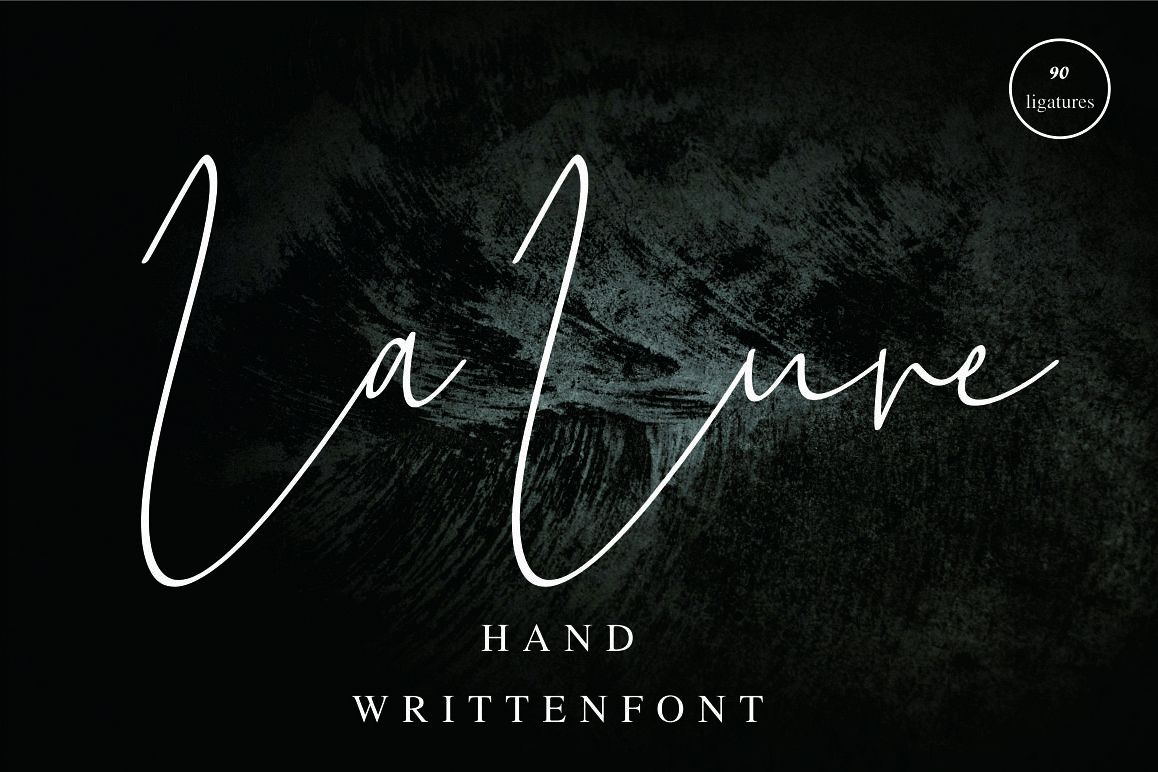
La Lune handwritten font
La lune
introduce my newly released font that is La Lune handwritten font, font that is very interesting for you and very simple then this font will be your best choice for your needs such as logo, design, magazine, product, packaging, quotes, etc.
then I made this font with 90 ligature, you just choose what you want :)